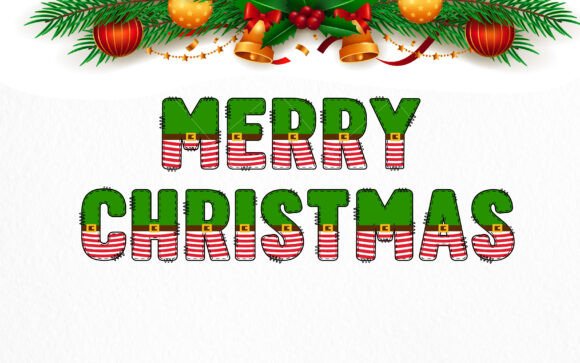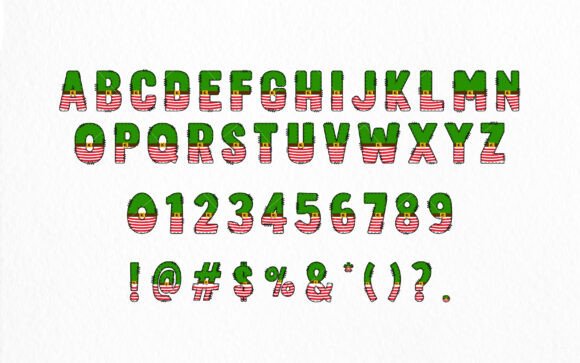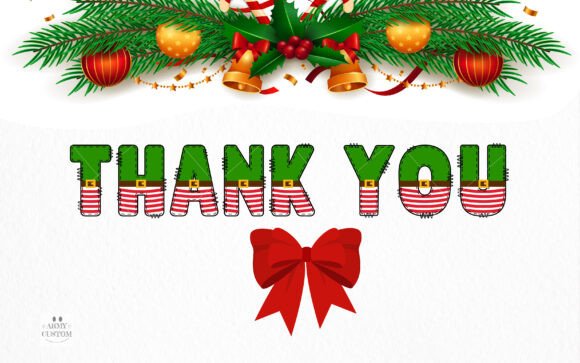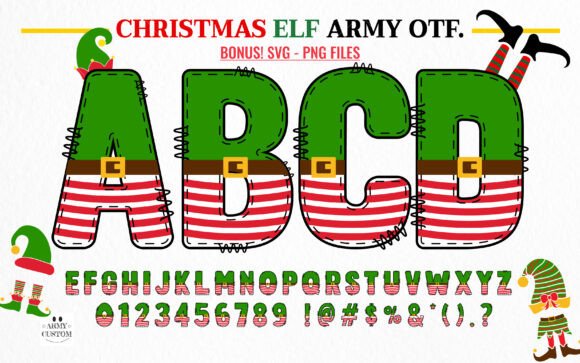
Introducing the Christmas Elf Army Font: A Whimsical Addition to Your Holiday Design Toolkit
Are you looking for a font that embodies the spirit of the holiday season? Look no further than the Christmas Elf Army Font! This delightful font is designed to bring a sense of whimsy and playfulness to your festive projects. Inspired by the adorable antics of Santa’s helpers, the Christmas Elf Font is the perfect choice for creating vibrant holiday decorations or adding a dash of merriment to any design project.
A Font that’s Full of Cheer
The Christmas Elf Font is a jovial and charming font that’s sure to bring a smile to your face. Its unique and playful style makes it an ideal choice for designers and crafters who want to add a touch of holiday magic to their projects. Whether you’re creating holiday cards, decorations, or promotional materials, this font is sure to make your designs stand out.
Bringing Holiday Cheer to Your Designs
With the Christmas Elf Font, every letter spelled out becomes a joyous celebration. The font’s playful and whimsical style is sure to add a touch of holiday magic to any design project. Here are just a few ways you can use the Christmas Elf Font to elevate your festive projects:
- Create vibrant holiday decorations, such as garlands, signs, and banners
- Add a dash of merriment to your holiday cards and invitations
- Design festive promotional materials, such as flyers and brochures
- Create fun and playful holiday-themed crafts, such as vinyl decals and iron-on designs
Tips and Tricks for Using the Christmas Elf Font
The Christmas Elf Army Font is a delightful and whimsical addition to any holiday design toolkit. With its playful and jovial style, this font is sure to bring a touch of holiday magic to your festive projects. Whether you’re a designer, crafter, or simply someone who loves the holiday season, the Christmas Elf Font is a must-have for anyone looking to add a dash of merriment to their designs. So why wait? Download the Christmas Elf Font today and start creating your own holiday masterpieces!